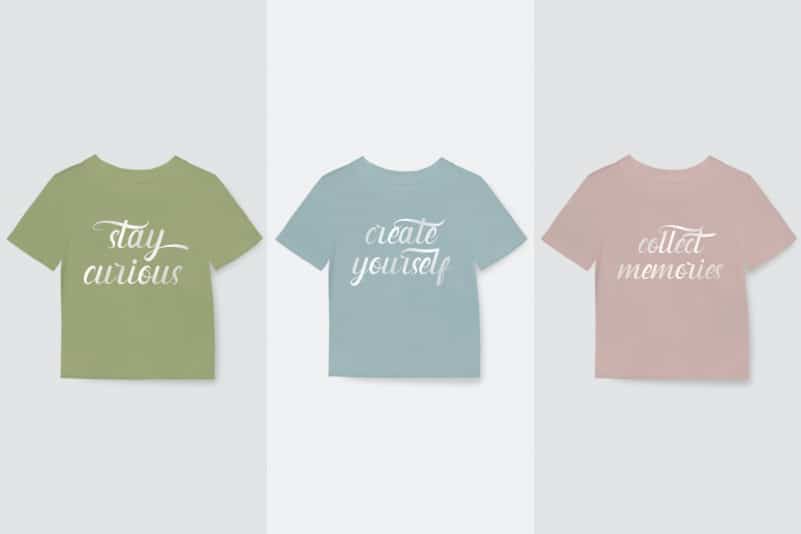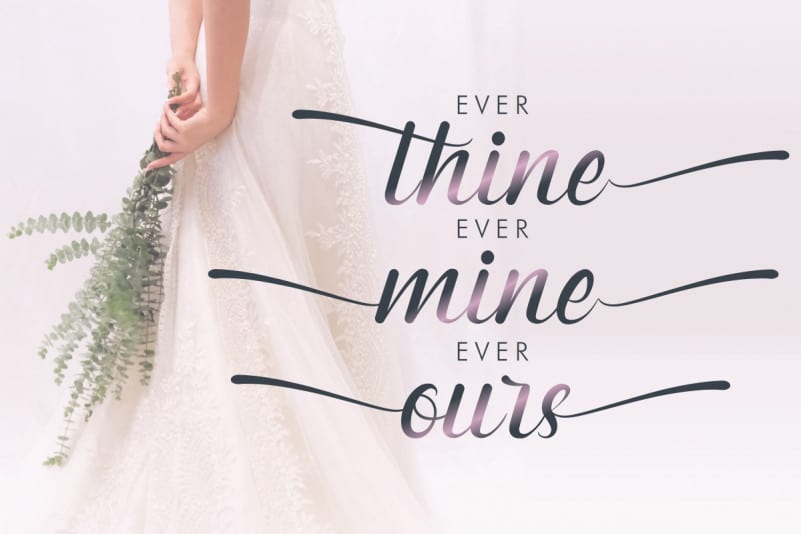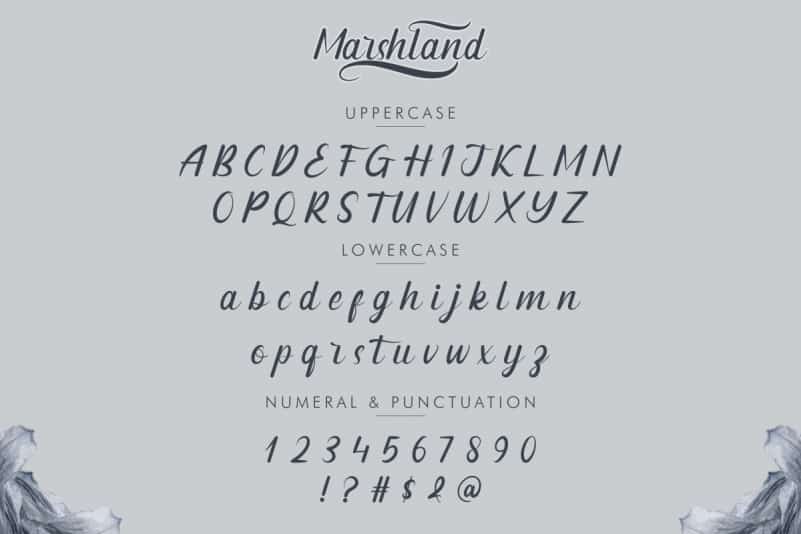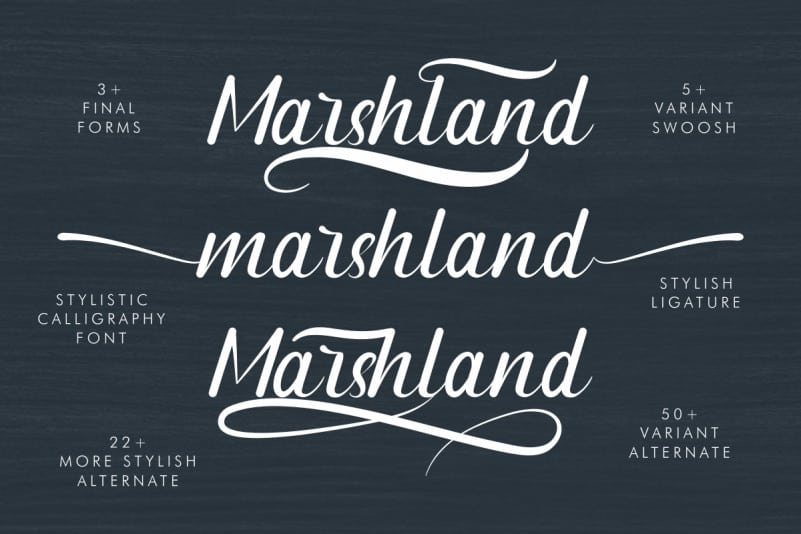
Marshland Calligraphy Font
Marshland Calligraphy Font will be stunning for any your special projects including : weddings, promotion, events, branding, advertising, magazine, shopping, signage, invitation, stationery, social media posts, product packaging, product designs, label, photography, watermark or and any projects that need calligraphy handwriting style.
Marshland Calligraphy Font includes full set of gorgeous uppercase and lowercase letters, numerals, a large range of punctuation and ligatures. All letters has realistic hand-lettered style to make it unique yet stunning design.